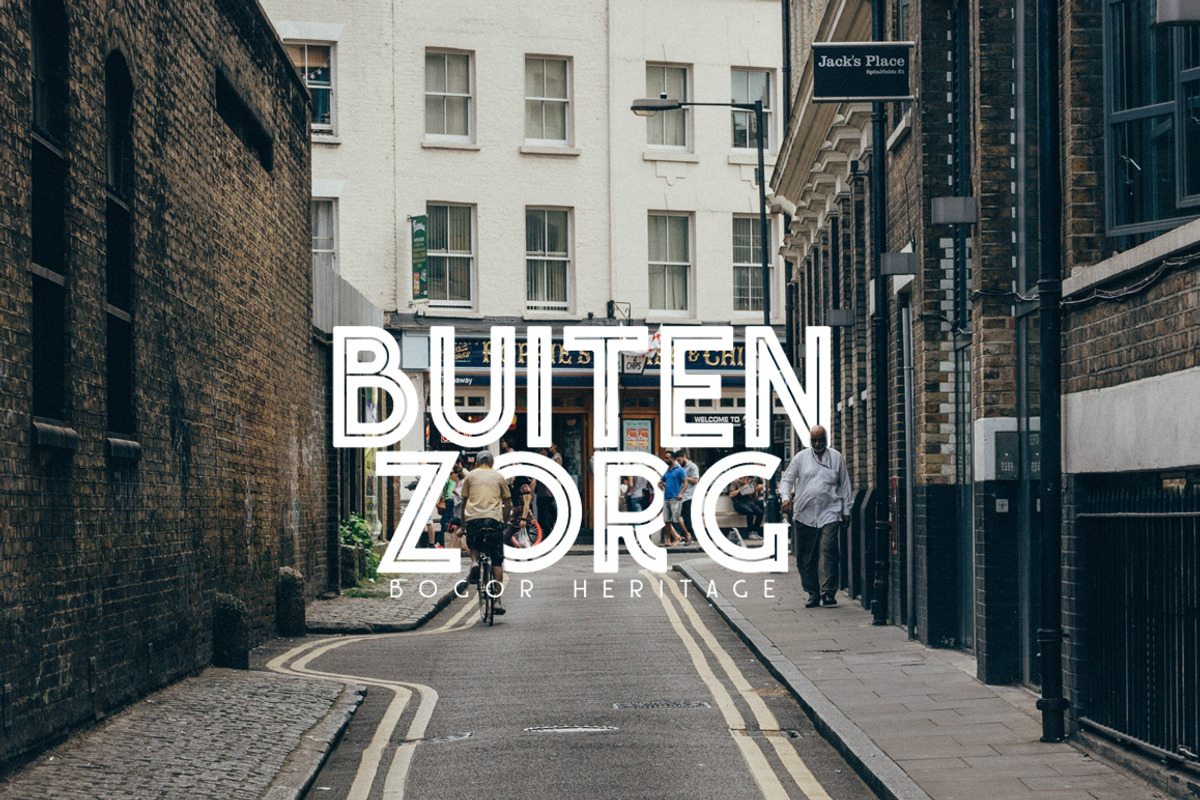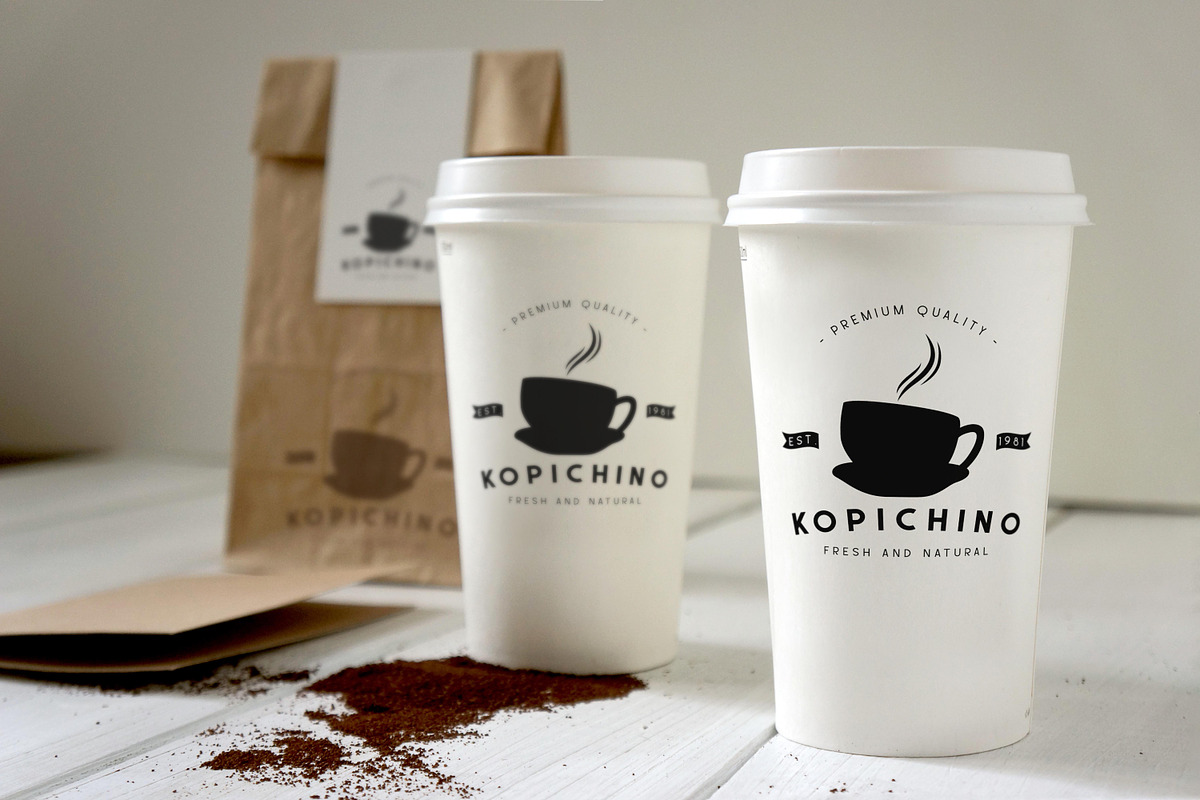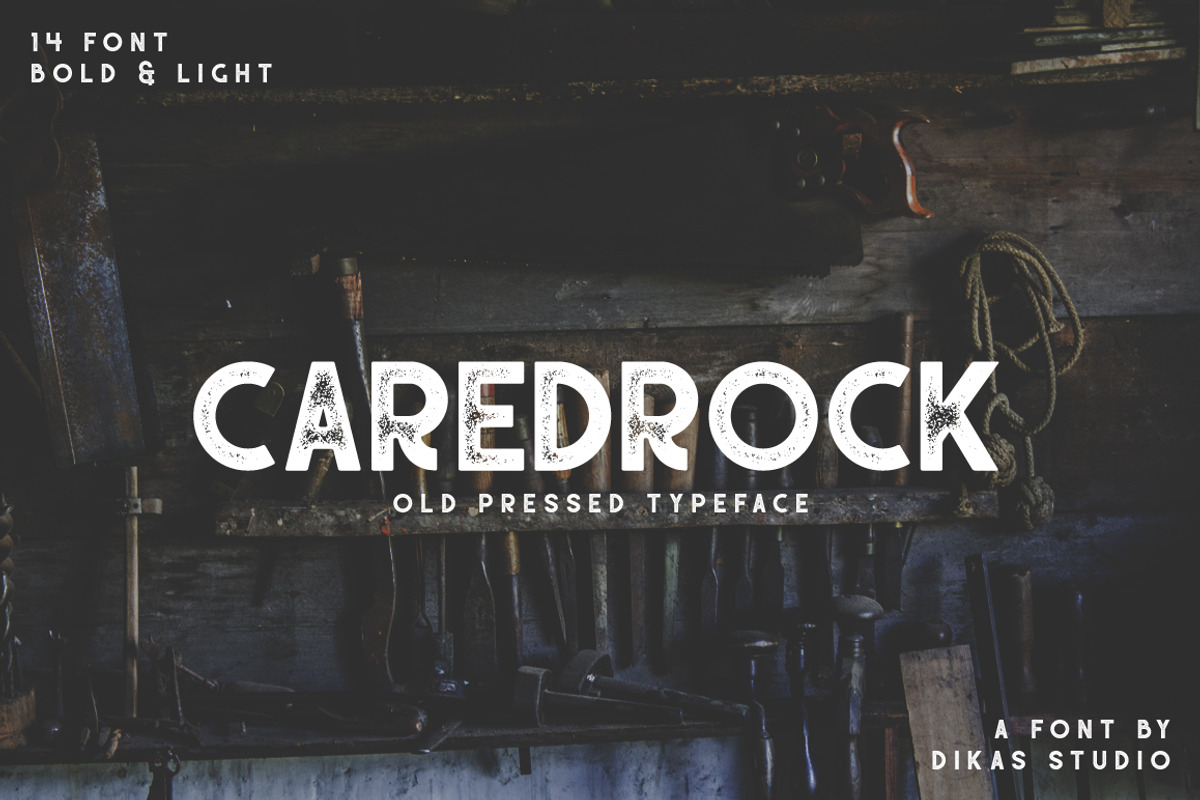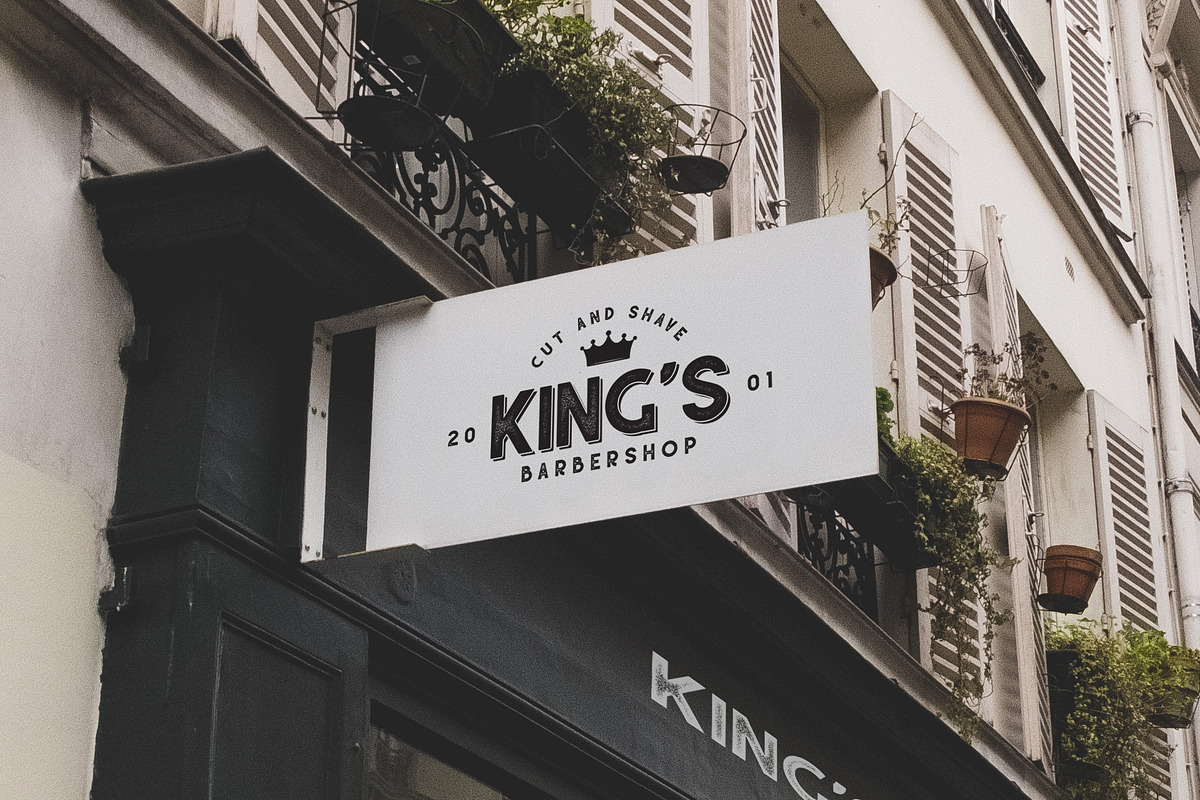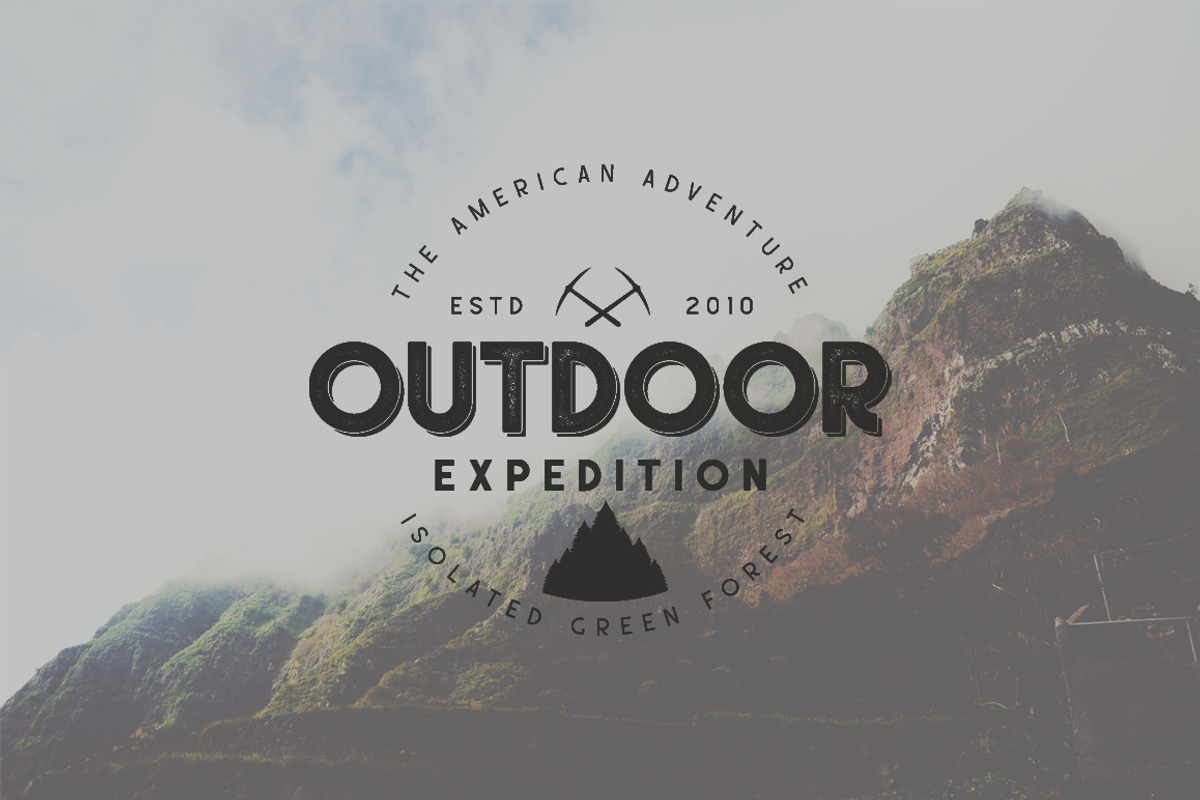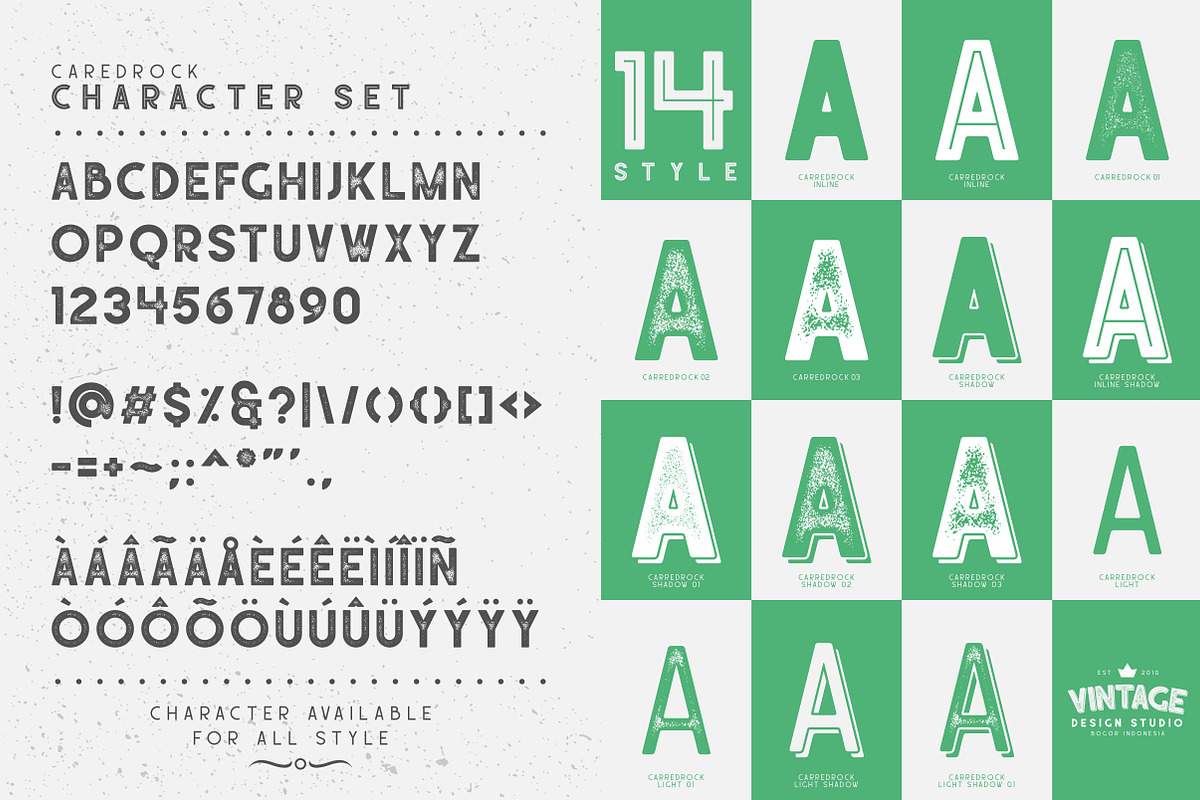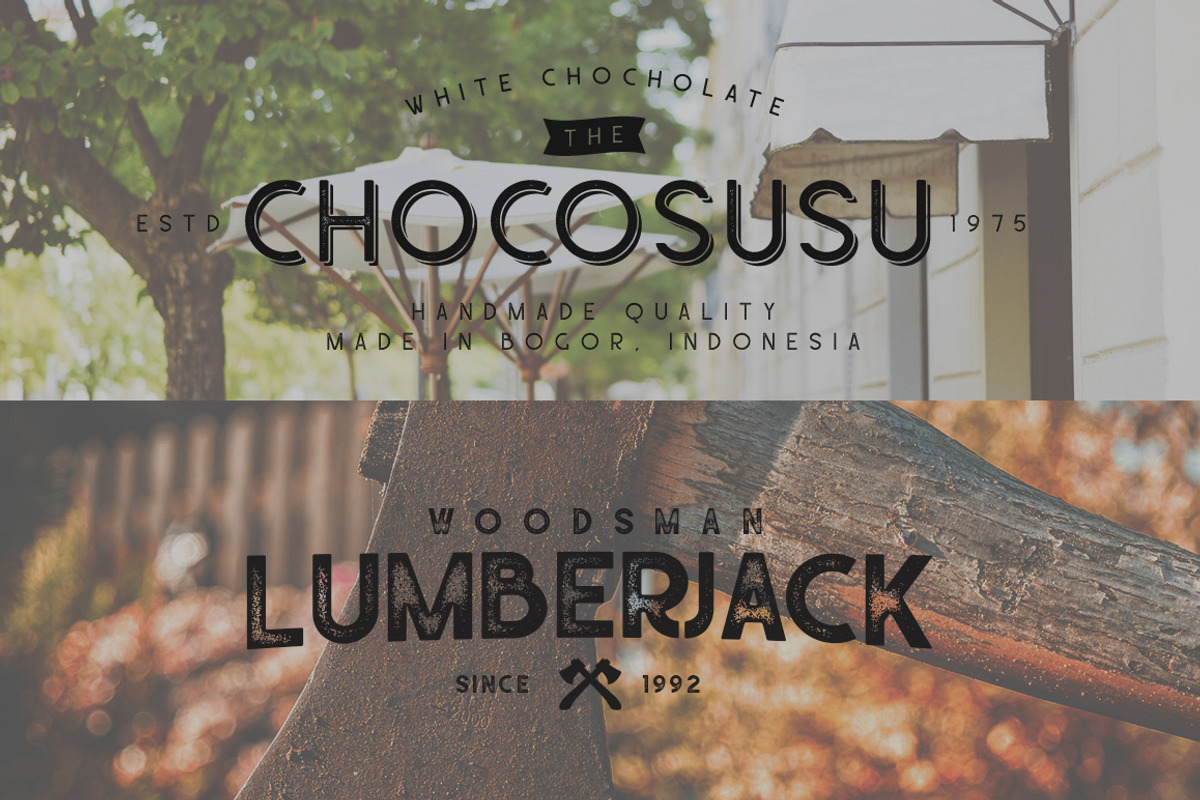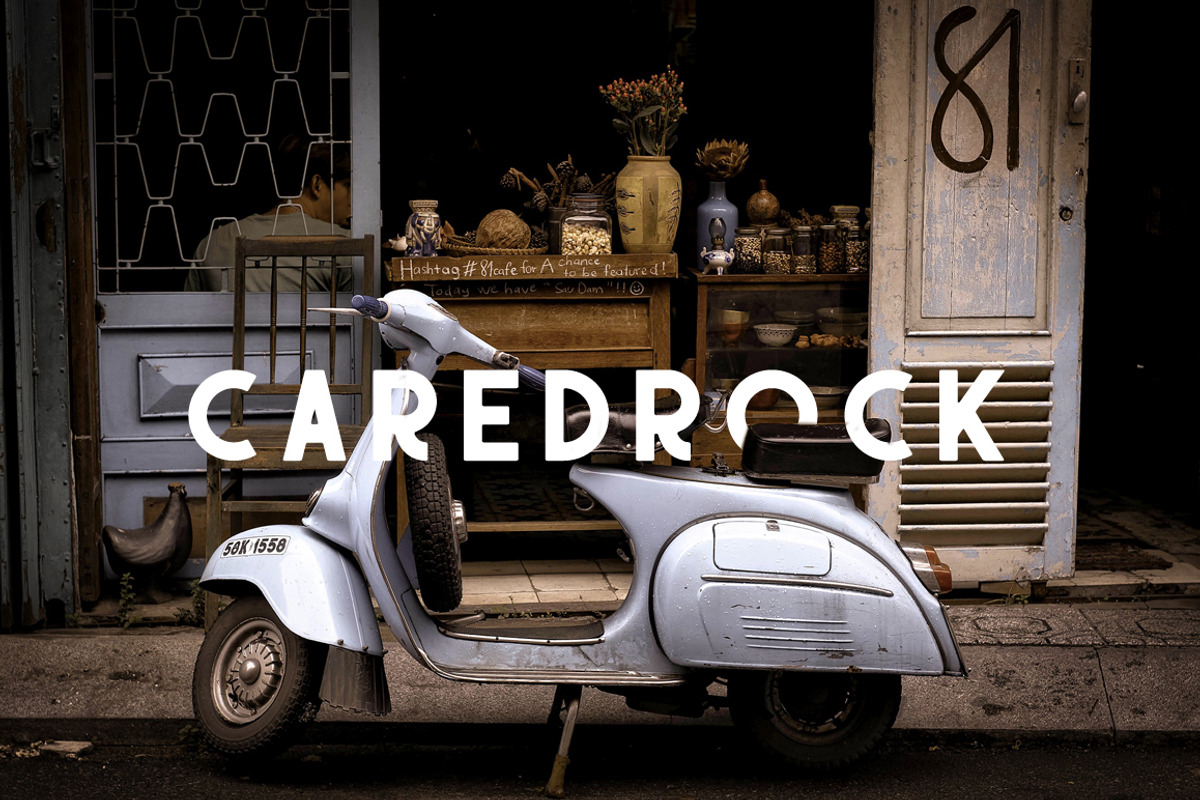
Caredrock - 14 Fonts Style + Extras
Caredrock is a old pressed font with vintage and authentic character. Caredrock have 14 styles with 2 weight, regular and light. The regular version have 10 styles and light version have 4 style including clean, press, inline and shadow. You can mix the font and free vector to create your design. Suitable and applicable to create vintage design, branding, logos, product packaging, invitation, qoutes, t-shirt, label poster etc.
All Caps Character
Punctuation and Number
Multilingual Language